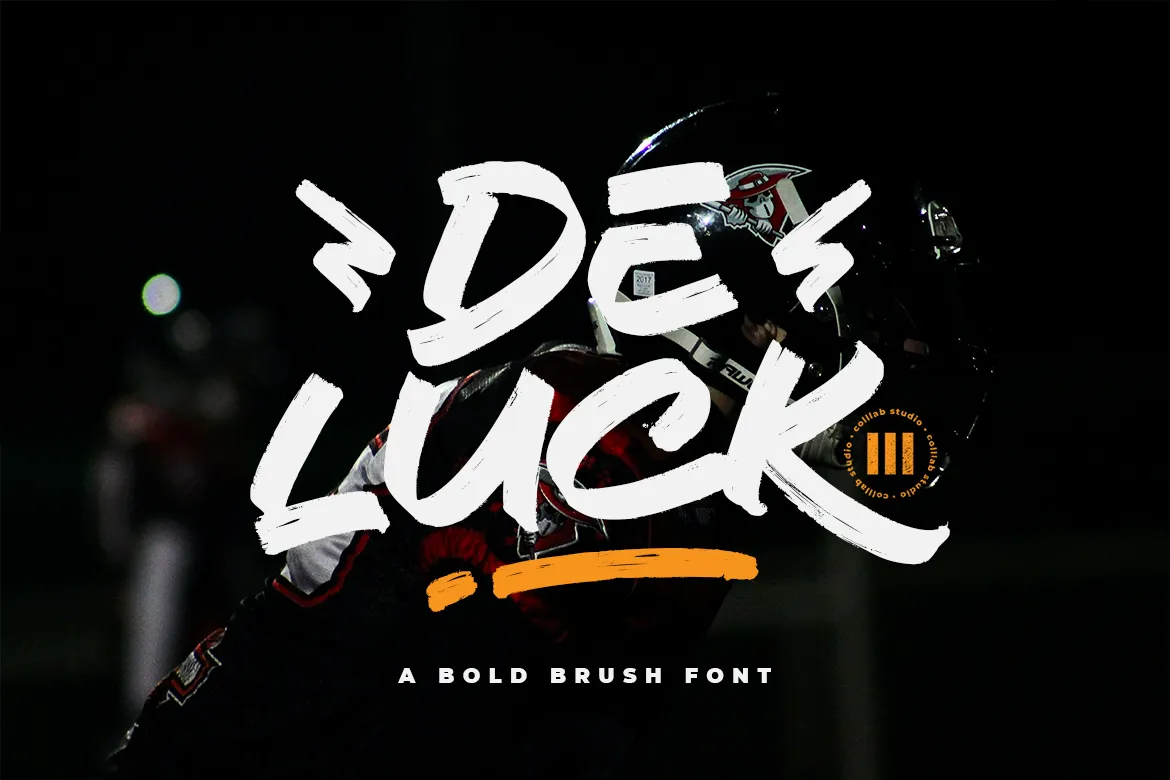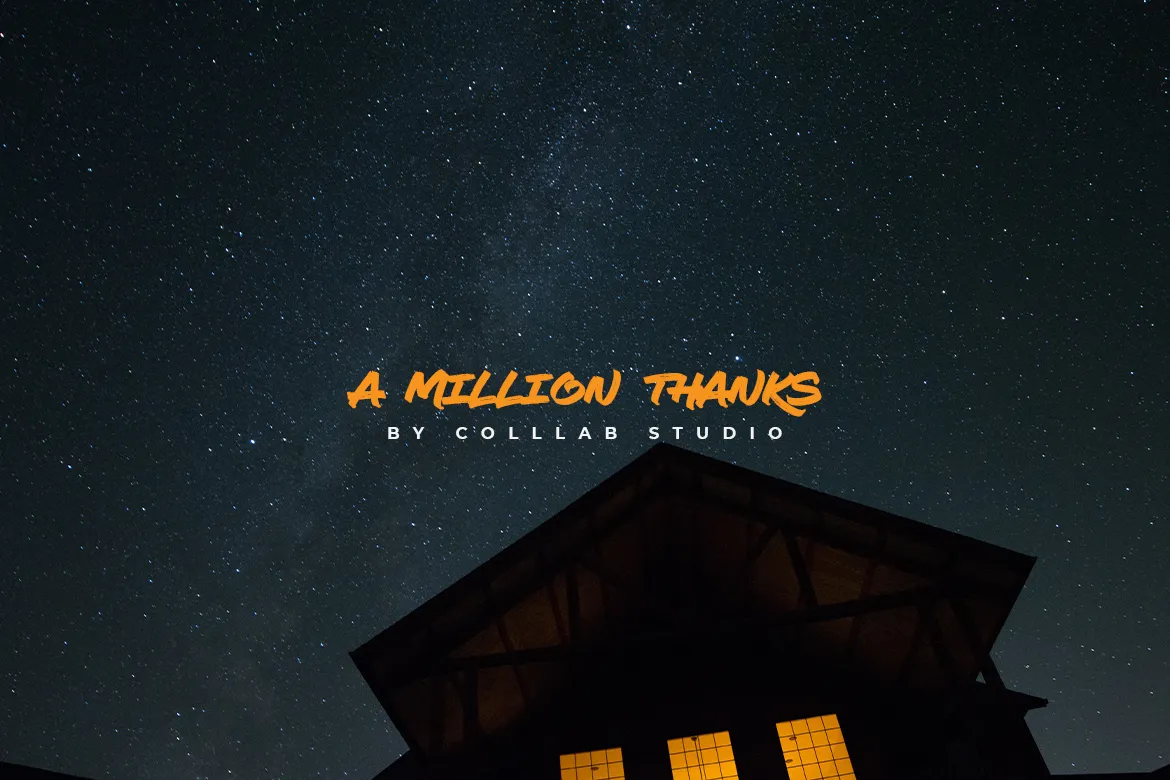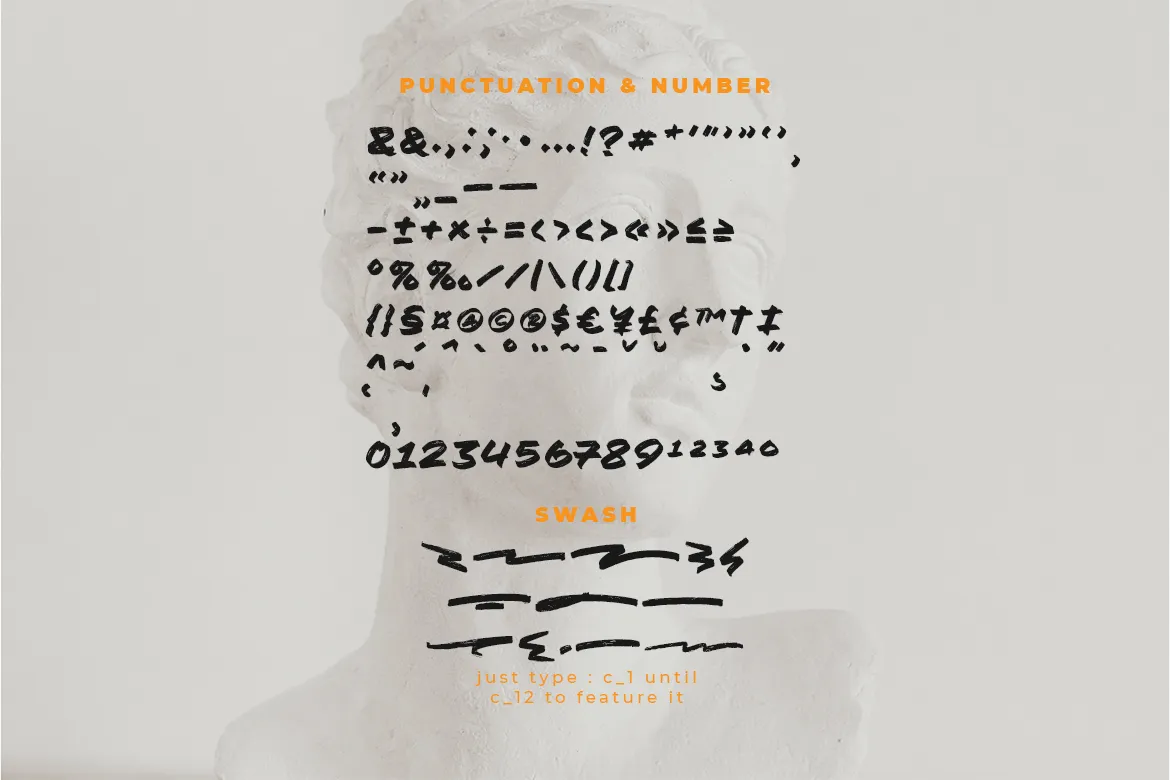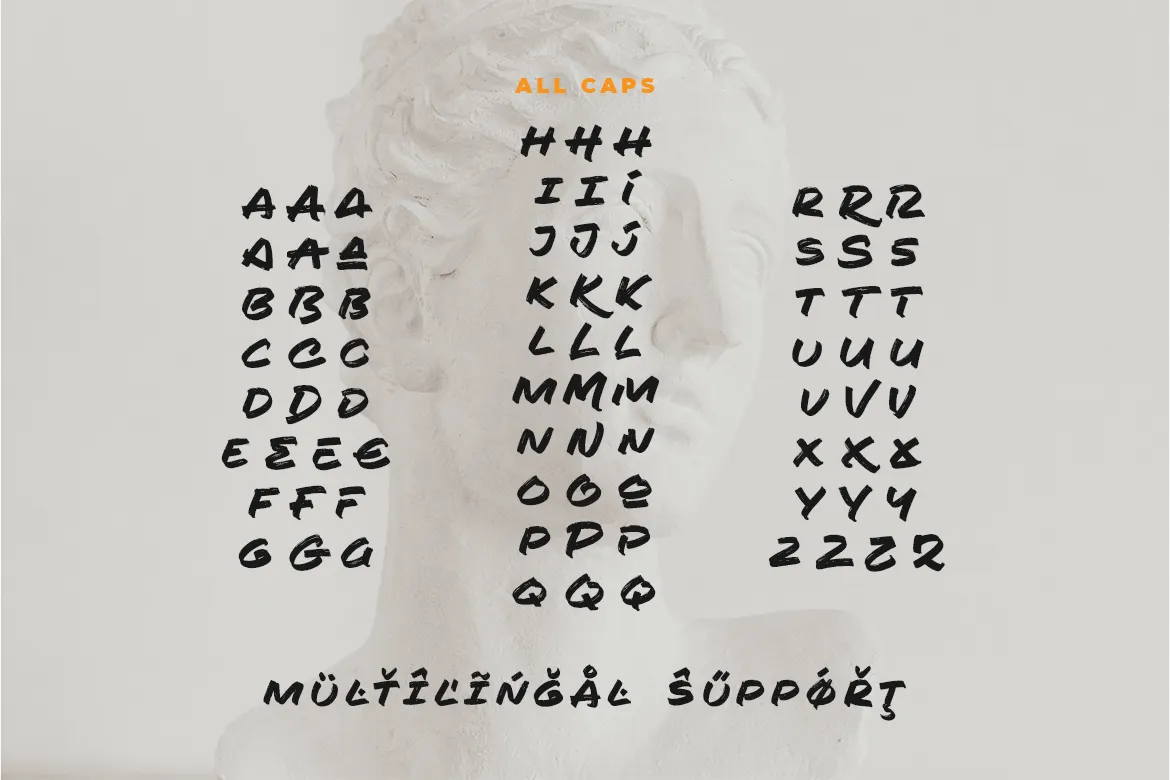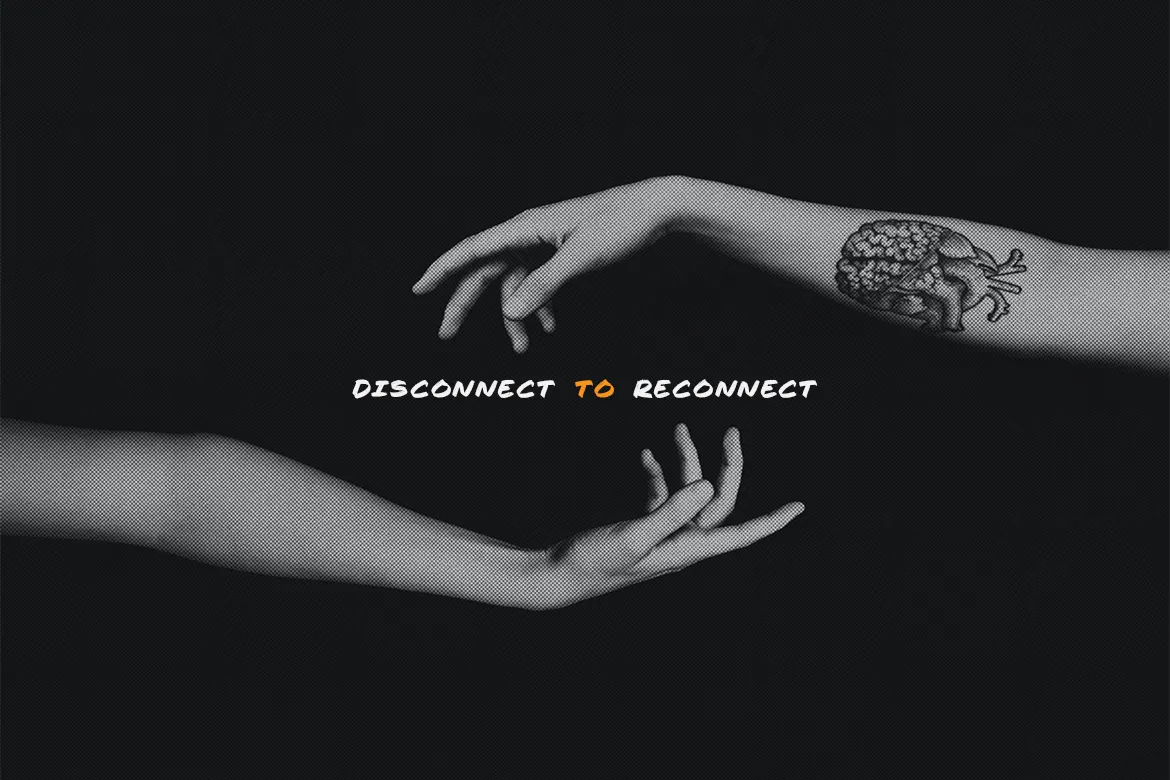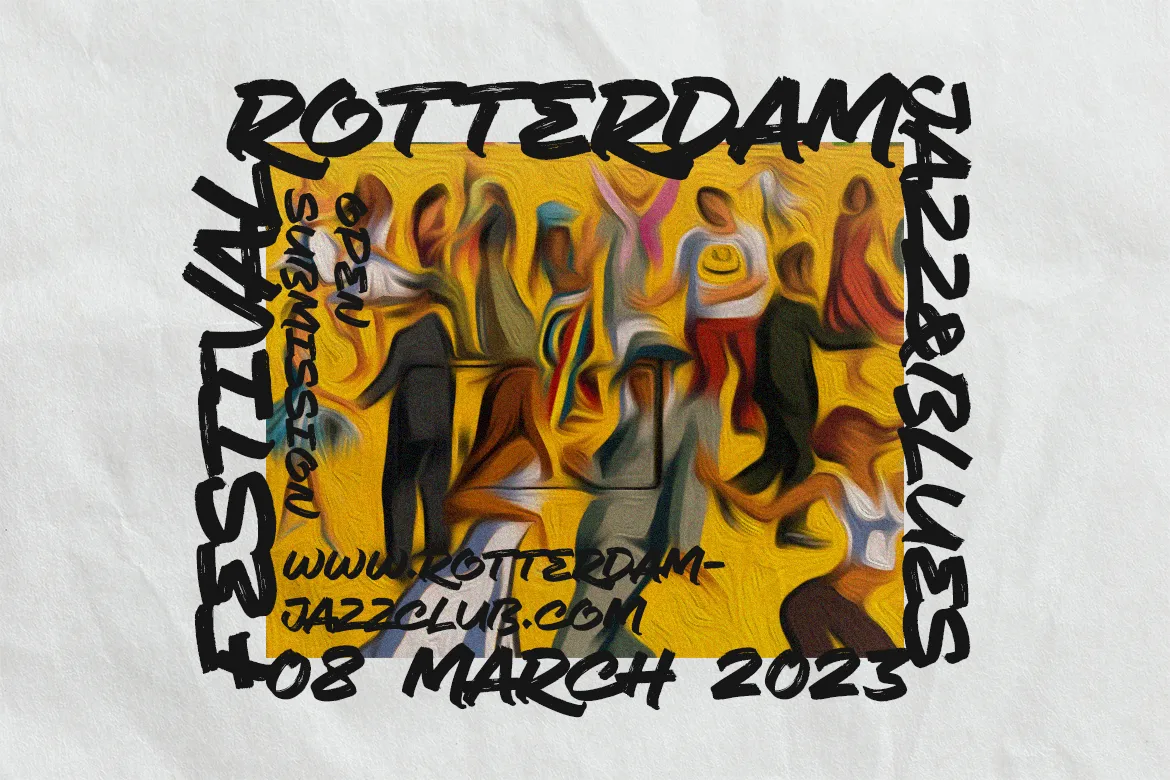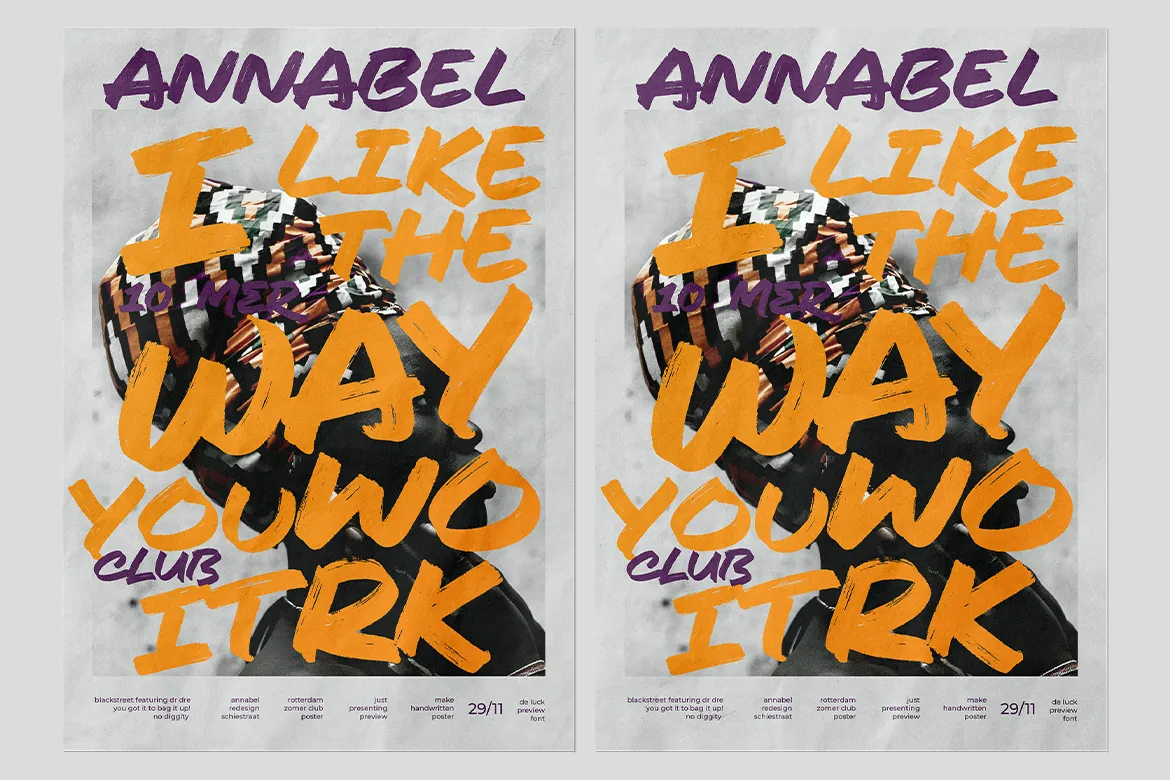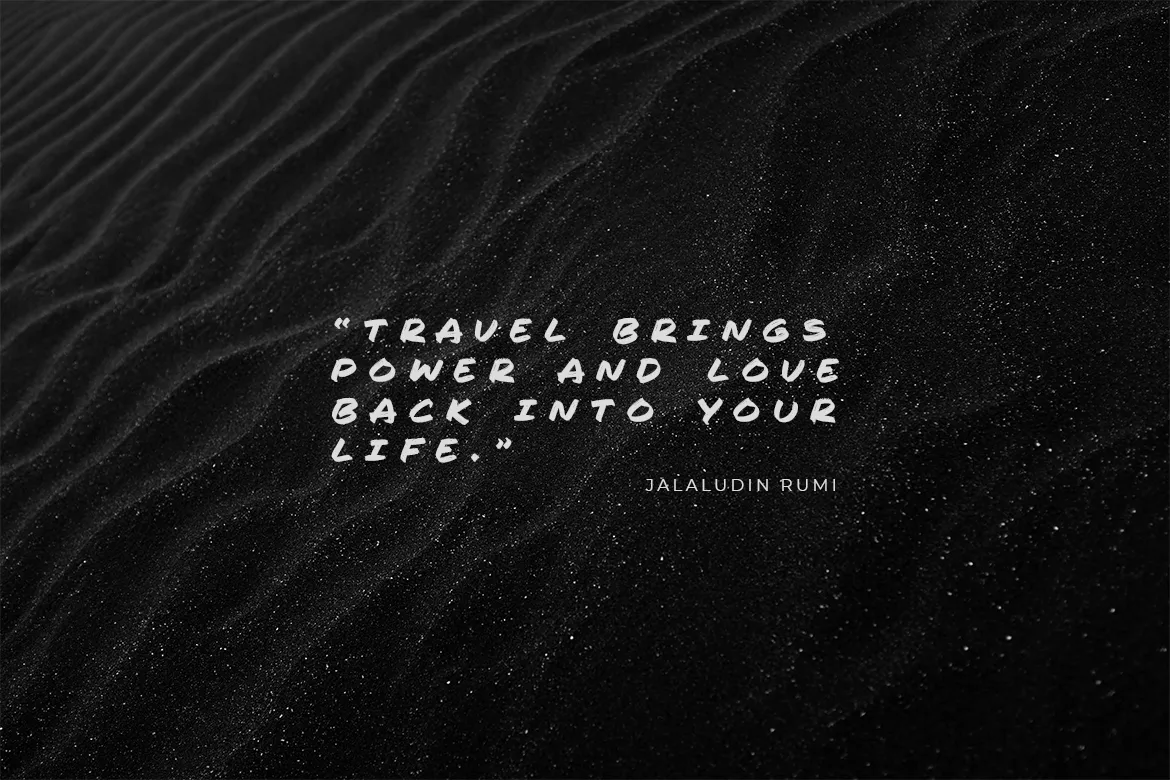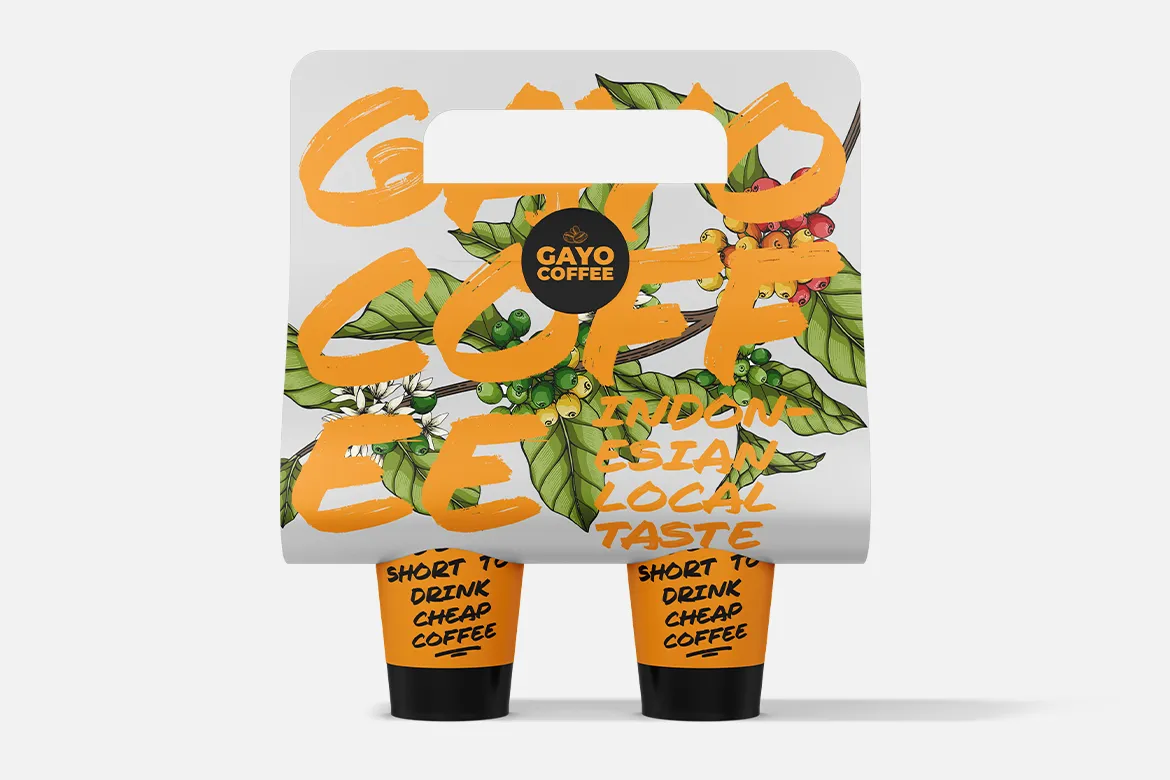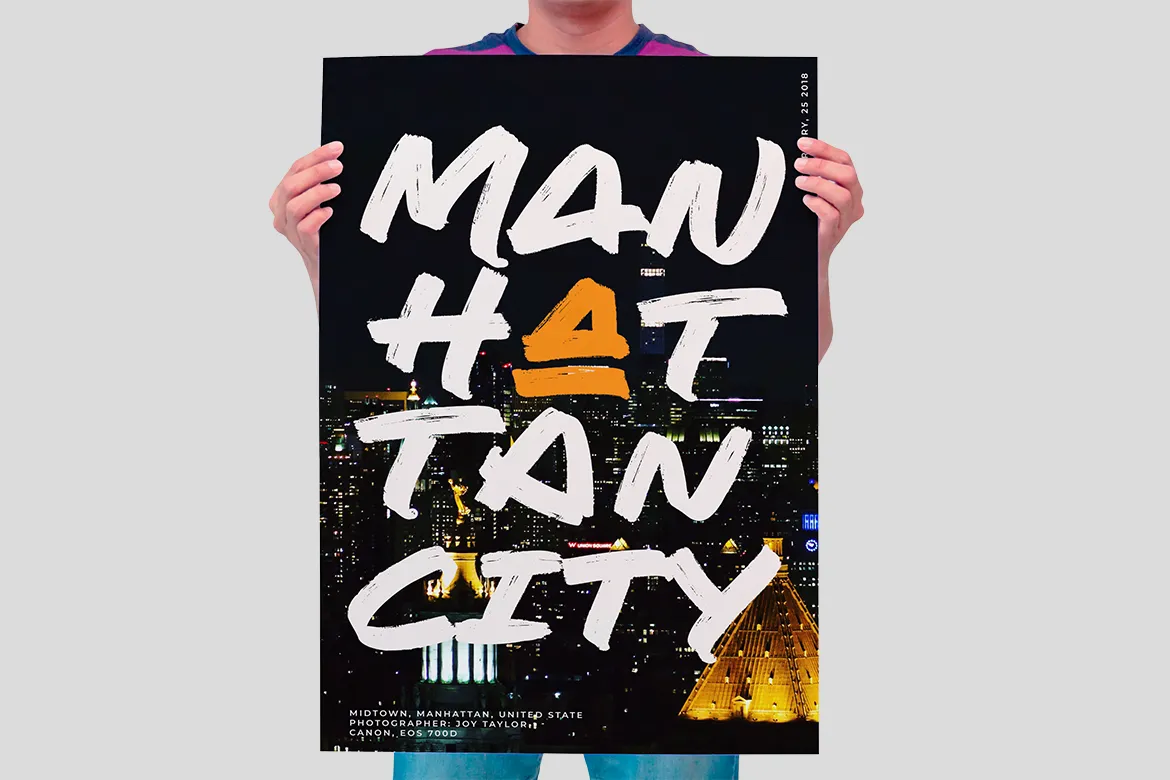
Introducing De Luck is a bold brush font, it has a strong character. Inspired by the bold lettering found in classic show-cards and advertisements, it will add character to any design. This font is a blast from the past and a step into future. It’s bold, it has a strong character and it is full of life.
De Luck includes over 200 glyphs that support European languages, including Central Europe.
Works perfectly in small size and large size. Eye-catching details show the temperament of the font. especially if you need to put a unique and strong character designed for your posters, headlines, T-shirt designs, labels, signage nameplates, brands etc.